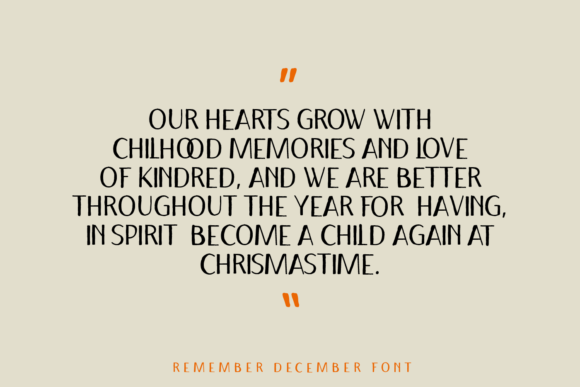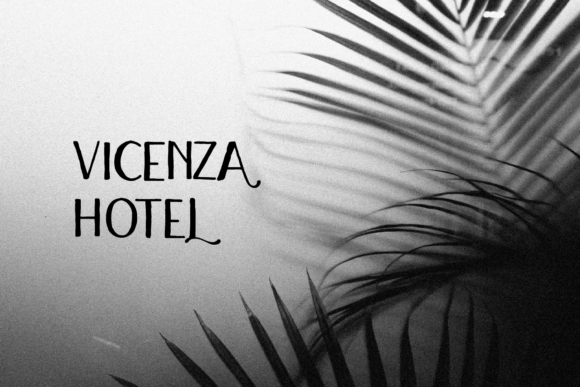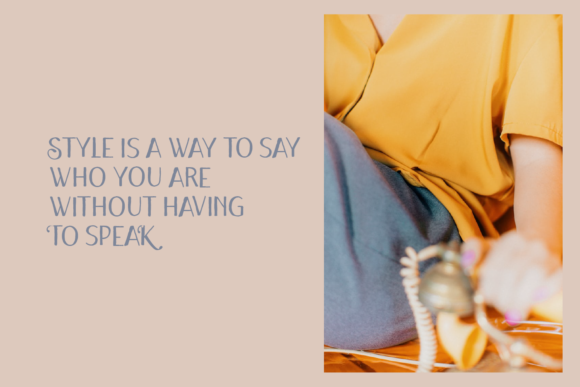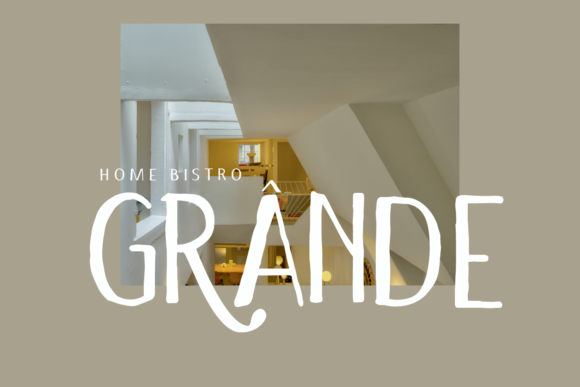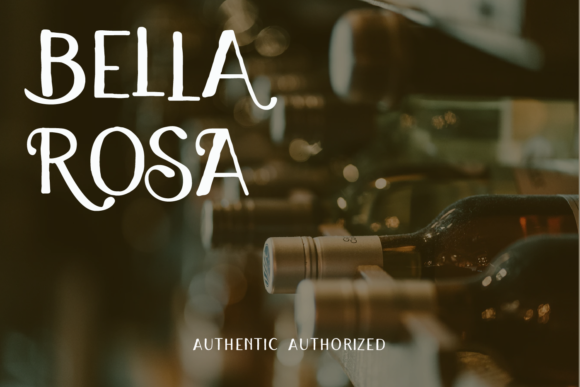
Introduction to Remember December Font
As designers, we’ve all been there – staring at a blank canvas, waiting for the perfect font to bring our creative project to life. It’s that moment of inspiration when everything falls into place, and the words start flowing. For many of us, that moment came when we discovered the Remember December Font – a natural and modern display font that exudes a casual yet elegant touch.
This high-quality design resource is more than just a font; it’s a versatile tool that can elevate any project from wedding invitations to signage and labels. With a transparent background and free download available, designers can experiment with Remember December Font on various creative projects without worrying about limitations. Whether you’re a seasoned pro or just starting out, this font is a valuable addition to your design arsenal.
From logos to t-shirts, headings to posters, Remember December Font is a go-to choice for designers who crave a unique yet timeless look. Its adaptability makes it an ideal selection for any project, making it a must-have in every designer’s toolkit.
Key Features of Remember December Font
- Unique, elegant design perfect for holiday-themed projects and winter-inspired designs
Honest Review: Remember December Font
I recently stumbled upon the Remember December Font, and I must say, it’s a great addition to any designer’s toolkit. As a design enthusiast, I’m always on the lookout for high-quality fonts that can elevate my creative projects.
One of the things that stands out about this font is its versatility. It’s perfect for designing holiday-themed materials, but it’s also suitable for general use throughout the year. The clean and elegant design makes it a great choice for logos, brochures, and even social media graphics.
- High-quality design that’s perfect for a variety of creative projects
- Transparent background, allowing for seamless integration with any design
However, I do have a few reservations:
- ⚠️ Limited character set, which may not be suitable for lengthy text-based projects
- ⚠️ May not be as customizable as some other fonts, which could be a limitation for designers who like to experiment with different styles
Overall, I’m impressed with the Remember December Font, and I think it’s a great addition to any design resource library. While it may have a few limitations, its high-quality design and versatility make it a valuable asset for designers of all levels.
The Remember December Font is perfect for various creative projects, including:
- Invitations and event graphics